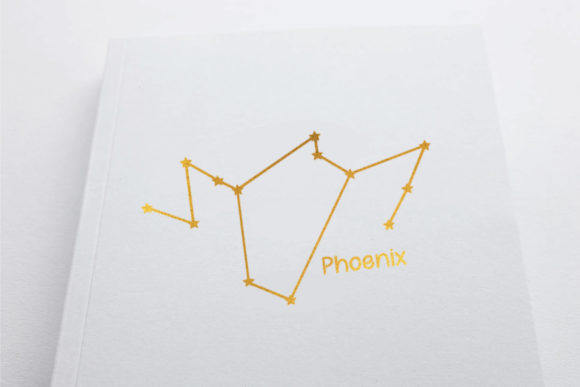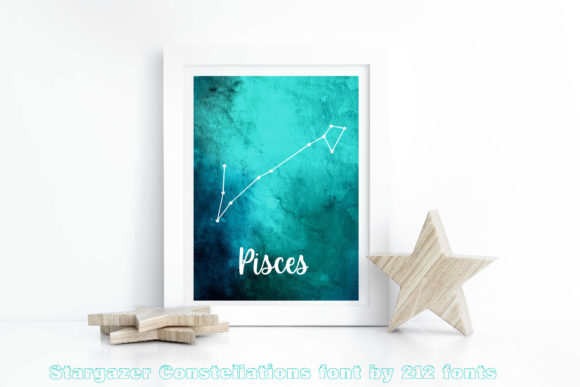
Stargazer Constellations Font
About Stargazer Constellations Font
Absolutely! Stargazer Constellations is an incredibly unique and interesting dingbats font that will add a touch of magic and wonder to your designs. With its collection of constellation-themed doodles, this font is perfect for creating celestial and astronomical designs. Here are some ways you can use the Stargazer Constellations font to create spectacular designs:
1. Astronomy Posters: Design captivating astronomy posters using the Stargazer Constellations font. Use the constellation doodles as visual representations of the night sky, showcasing different star patterns and constellations. Whether you’re creating educational posters, event promotions, or decorative prints, the Stargazer Constellations font will add a celestial charm to your designs.
2. Astrology and Horoscope Websites: Create visually appealing and engaging websites for astrology and horoscope-related content using the Stargazer Constellations font. Incorporate the constellation doodles as decorative elements, icons, or dividers to enhance the mystical and cosmic theme of your website. Whether you’re building a website for astrological readings, horoscope predictions, or celestial knowledge, the Stargazer Constellations font will bring a unique and enchanting style to your web design.
3. Celestial-themed Invitations: Design stunning invitations for celestial-themed events, such as starry night parties, stargazing gatherings, or astronomy-themed weddings, using the Stargazer Constellations font. Incorporate the constellation doodles as decorative elements or borders to create an elegant and celestial atmosphere. Your invitations will evoke a sense of wonder and anticipation with the help of this unique dingbats font.
4. Fantasy Book Covers: Create captivating book covers for fantasy novels or science fiction stories using the Stargazer Constellations font. Incorporate the constellation doodles as part of the typography or as decorative elements to give your book covers a touch of otherworldly charm. Whether you’re designing covers for young adult novels, epic fantasy sagas, or space-themed adventures, the Stargazer Constellations font will add a unique and intriguing visual element to your designs.
5. Cosmic-themed Logos: Develop unique and eye-catching logos for businesses or brands related to astronomy, astrology, or celestial products using the Stargazer Constellations font. Incorporate the constellation doodles into your logo design to create a distinct and memorable identity. Whether you’re branding a planetarium, a space-themed clothing line, or an astrology app, the Stargazer Constellations font will bring a touch of cosmic beauty to your brand.
6. Inspirational Prints: Create inspirational prints with celestial-themed quotes or messages using the Stargazer Constellations font. Combine the constellation doodles with beautiful typography to create visually striking and motivational artworks. Whether you’re designing prints for home decor, office spaces, or gifts, the Stargazer Constellations font will add a unique and enchanting element to your designs.
Remember to experiment with different combinations of the Stargazer Constellations font, other typography, and color schemes to create truly spectacular designs. Let the font’s unique and versatile style inspire your creativity and take your designs to new celestial heights!